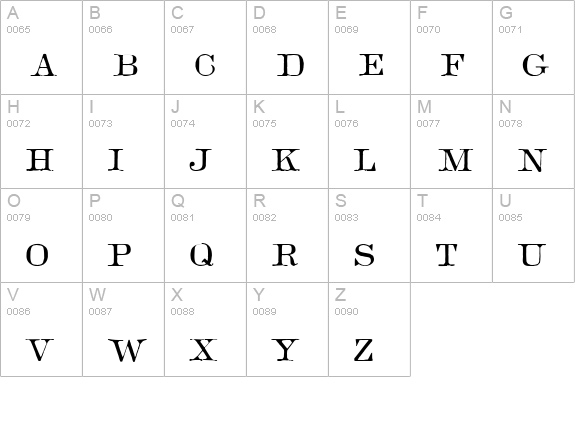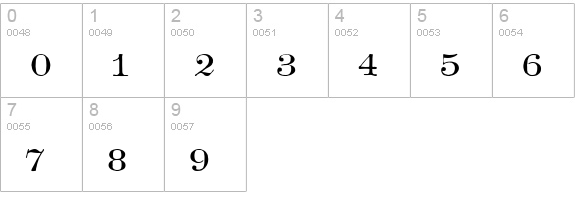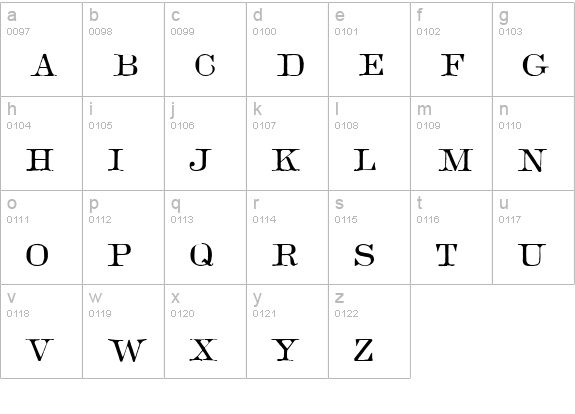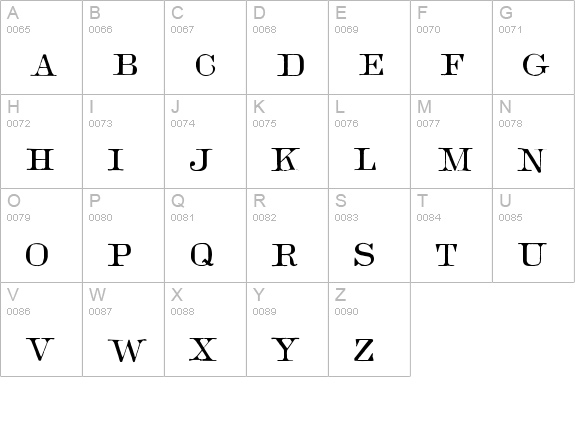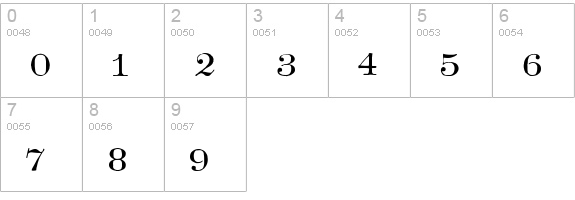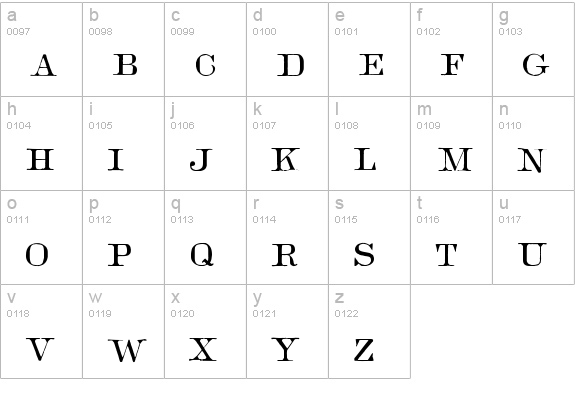
Copperplate Roman HPLHS Font Details
Copperplate Roman HPLHS font is a timeless and elegant typeface that exudes sophistication and refinement. Its classic Roman letterforms are beautifully crafted with delicate serifs and graceful curves, making it perfect for any project that requires a touch of traditional charm. This exquisite font is ideal for formal invitations, elegant stationery, and prestigious branding materials. Its versatility allows it to be used in a variety of design applications, from wedding invitations to corporate logos. Best of all, Copperplate Roman HPLHS font is completely free to download at FontsMarket.com. This means you can add this stunning typeface to your collection without breaking the bank. Don't miss out on the opportunity to enhance your designs with this exquisite font today!